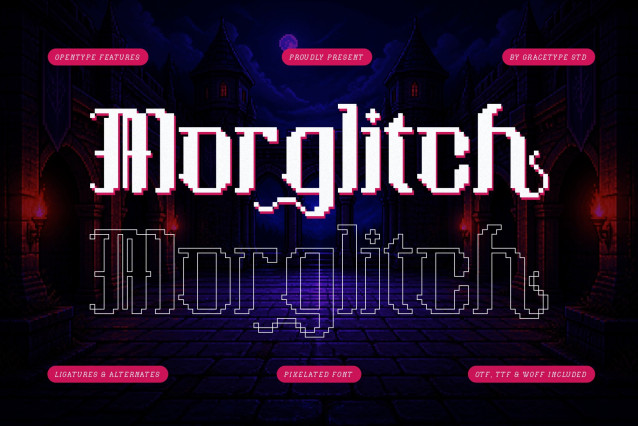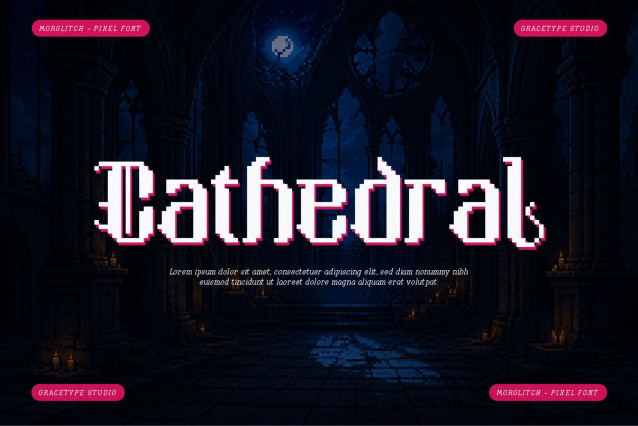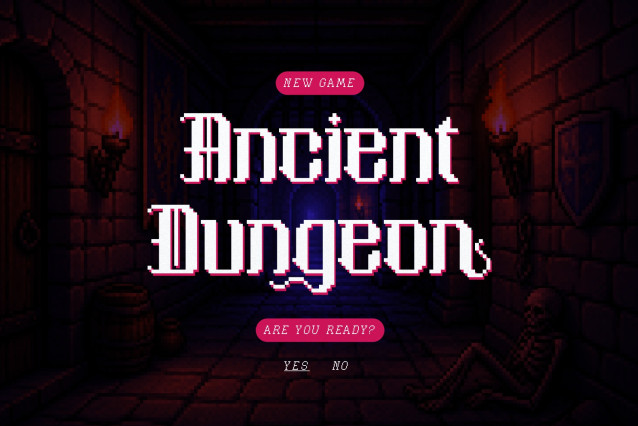
Morglitch Pixelated Font
Morglitch Pixelated Font, from Gracetypestudio, suitable for any projects such as: logos, branding projects, homeware designs, product packaging, mugs, quotes, posters, shopping bags, t-shirts, book covers, name card, invitation cards, greeting cards, label, photography, watermark, special events, and all your other lovely projects that need a Pixelated taste.